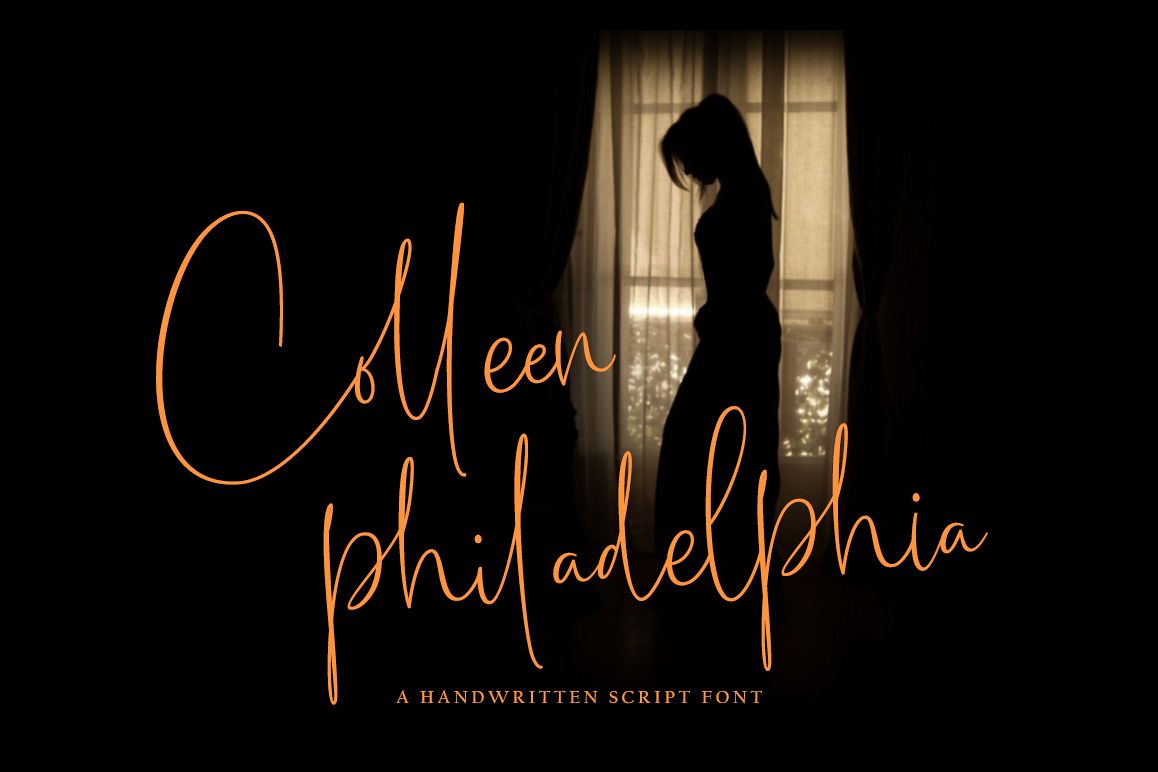
Colleen philadelphia font
Colleen philadelphia
Introducing the Collee philadelphia font, New
fashionable handwriting script. typographic harmony for design projects,
including logos & branding, wedding designs, social media posts,
advertisements, product designs & quotes. This font also supports
multilingual, number and symbol, and many ligatures. Also this font is
PUA Encoded.
Collee philadelphia font contains following ligatures :
aa ab au ac ae af ag ah ai aj ak al am an ao ar as
at av aw ax ay az att aii arr aff alt ass ath bb bh bi bj bl cc bk bp br bt bx bz bll btl cb cd ch cf ck cl cl cm cn cz cr co cs cx cust da dr db dc de df dg dh di dj dk dl dd ds do dx dz dizz dst dsl ed eb ee eg ef eh ej ek el em en eo ep er es et ex ez ett eth err esp espr eff ff gh he ia ian if iff ild im in gg ip irr is ilh ith mm nn od il ld lf ll ls lt of off ol om on oo op or orr os oth ot ou out ov ow pp rr sh si sia sm sn so ss st th tt lt uf uff ij iz oll ph sf fz jj cj fj gj qj uj fi fu